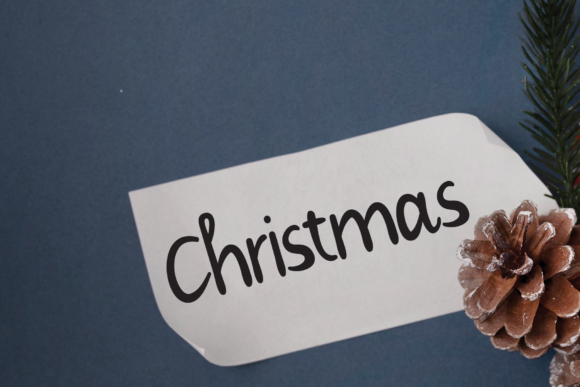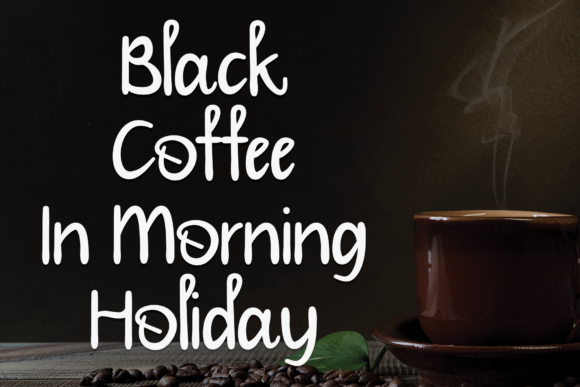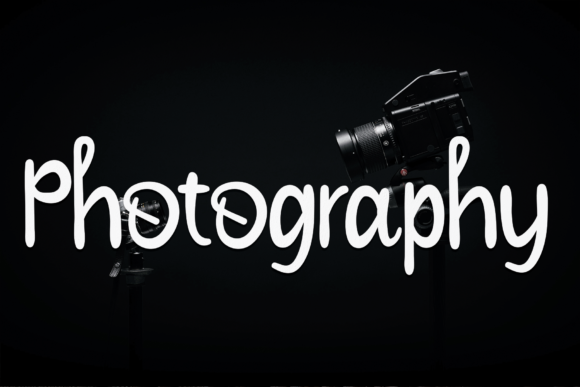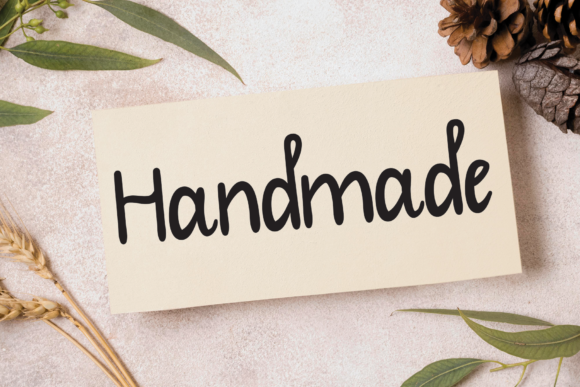
The Quest for the Perfect Font: Discovering Farm
I still remember the frustration of working on a design project, hours spent perfecting every detail, only to be held back by one thing: the font. It was a client project, and they wanted something elegant, yet modern; something that would make their brand stand out. I scoured the internet, tried countless fonts, but none seemed quite right. That was until I stumbled upon Farm, an elegant script font that has since become a staple in my design toolkit.
A First Impression of Farm
Farm is described as an elegant script font with a contemporary atmosphere and impeccable form, inspired by timeless classic calligraphy. And that’s exactly what it delivers. Not too thin and not too thick, it’s balanced and varied, making it perfect for a wide range of projects. From branding and packaging to wedding invitations and blog headers, Farm brings a touch of sophistication and charm.
An Honest Review of Farm
So, what do I love about Farm? Here are a few highlights:
- ✨ Elegant and Modern: Farm strikes the perfect balance between classic and contemporary.
- ✅ Versatile: It works well in both digital and print formats.
- 💫 Beautiful Ligatures: The font comes with a range of ligatures that add a touch of sophistication to any text.
- 📝 Easy to Read: Despite its elegant nature, Farm remains clear and readable, even at smaller sizes.
Of course, no font is perfect. A few quirks to be aware of:
- 🤔 Limited Use in All Caps: While Farm is stunning in lowercase, it’s not as effective in all caps. Use it sparingly for headings or emphasis.
- ⚠️ Requires Attention to Kerning: As with any script font, kerning can be a bit tricky. Take the time to adjust for optimal results.
The Story Behind Farm
Farm was designed with the aim of creating a font that embodies both classic elegance and modern simplicity. Inspired by traditional calligraphy, the designer sought to craft a font that was not only beautiful but also versatile and easy to read. The result is a font that feels both timeless and contemporary.
- Q: Is Farm suitable for body text?
- A: While Farm is elegant and readable, it’s best used for headings and titles. For body text, consider a more straightforward font.